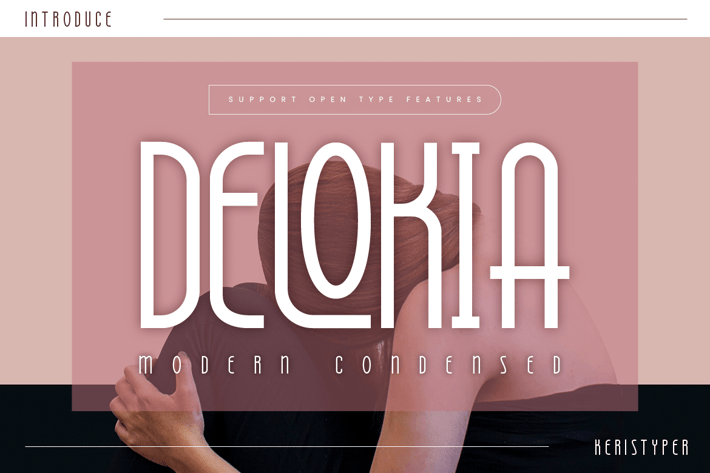
Delokia Font
Delokia is a condensed font with visual elegance, and smooth curves make your work look true and attractive. This font is good for logo design, Social media, Movie Titles, Books Titles, short text even long text letters, and good for your secondary text font with script, sans, or serif.
Standard Uppercase & Lowercase
Multilingual : ä ö ü Ä Ö Ü ß ¿ ¡
Alternate & Ligature